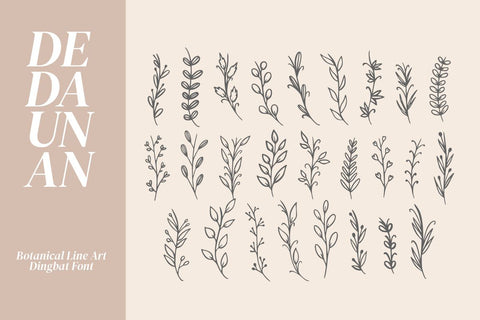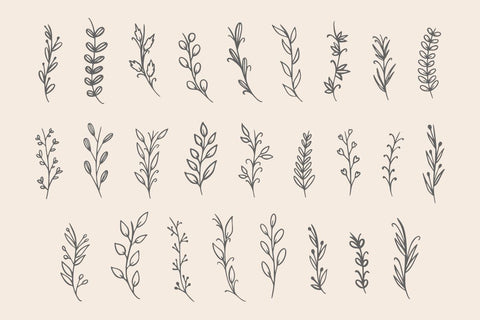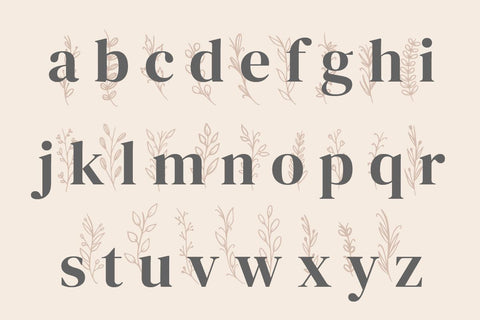
Dedaunan - A Botanical Dingbat Font
Dedaunan is a dingbat font with a floral and line art style. This font is made with original hand drawn sketches. This font is perfect for weddings, decorations, logos, cosmetics, etc.